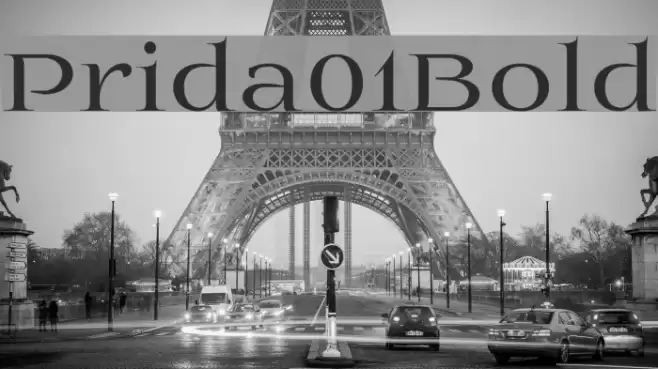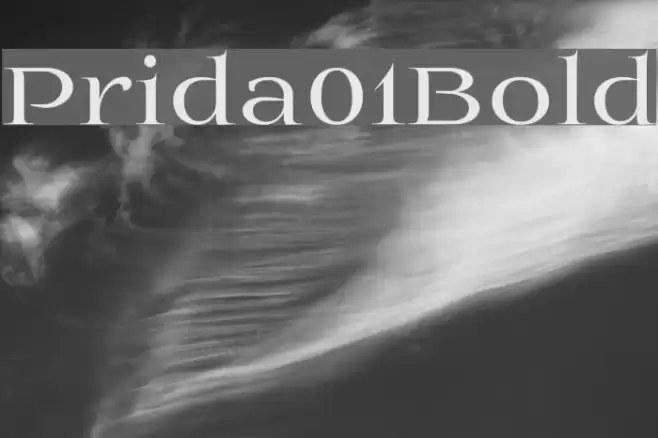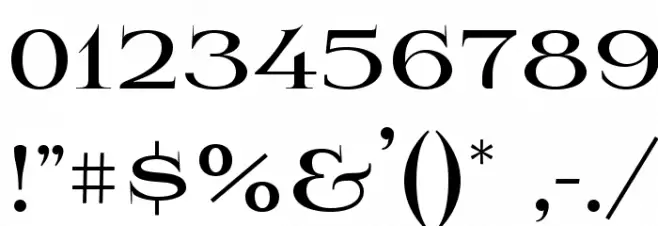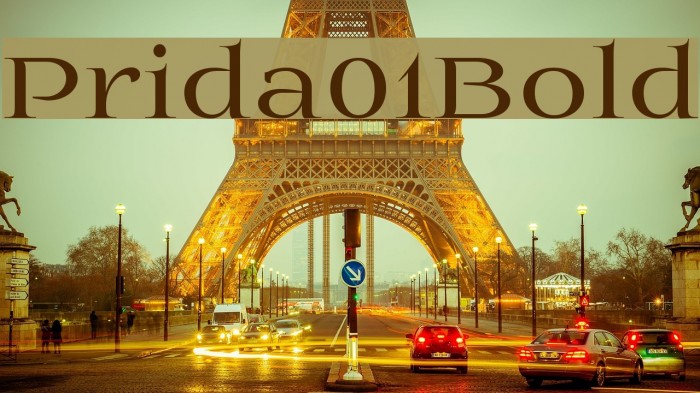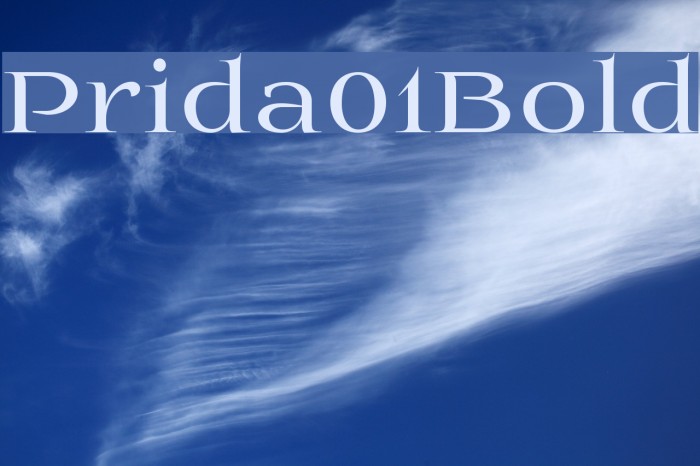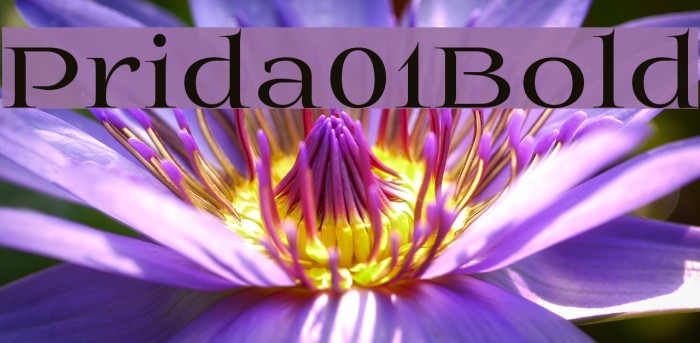
Prida01Bold
This font features a bold and elegant serif style with distinct, sharp serifs that give it a classic yet modern appearance. The uppercase letters are tall and commanding, while the lowercase letters maintain a balanced proportion, enhancing readability. The numerals are clear and consistent with the overall design, making them suitable for both display and text purposes. Special characters are well-integrated, maintaining the font's cohesive aesthetic. The font's bold weight and high contrast between thick and thin strokes add to its striking visual impact, making it ideal for attention-grabbing headlines and sophisticated branding.
A bold serif font with sharp serifs and high contrast, perfect for elegant and impactful designs.
- Proposed Projects: Ideal for luxury branding, editorial design, book covers, and high-end product packaging.
- Category: Serif
- Contrast: High
- Overall Style: Classic